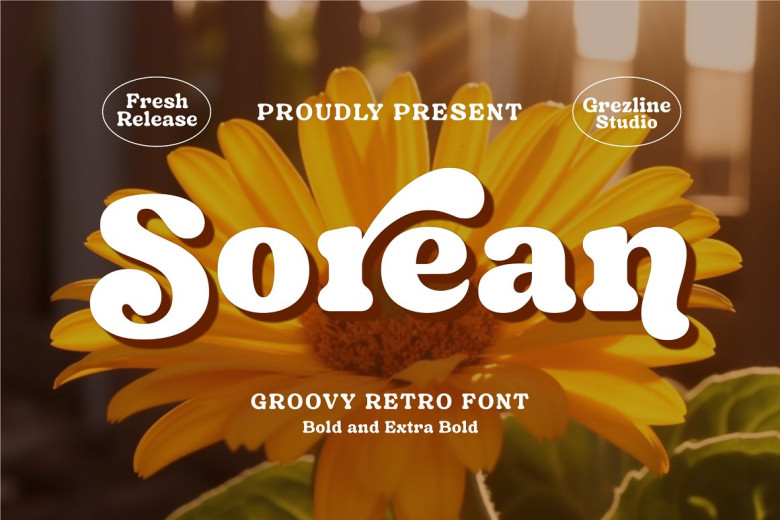
Sorean font features an expressive retro look with multiple alternate glyphs for bright designs with retro flair. Ideal for retro and groovy looks, Sorean is suitable for logos, covers and posters as well as quotes, merchandise packaging, social media posts and product packaging – as well as many other applications!
Sorean Retro Font